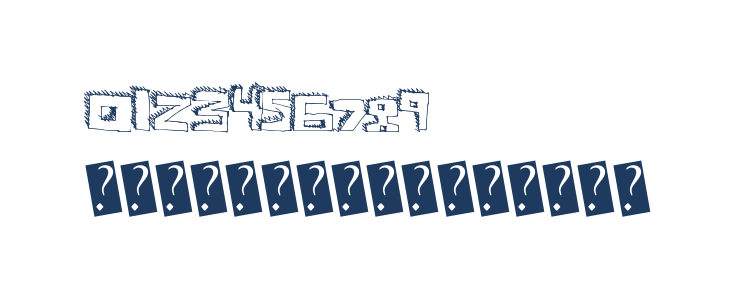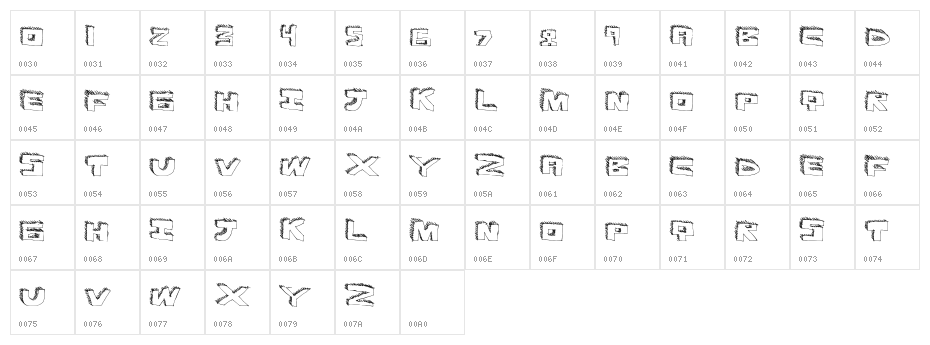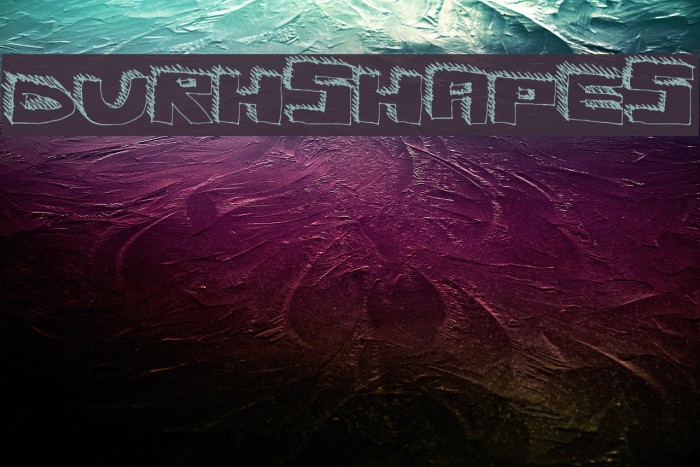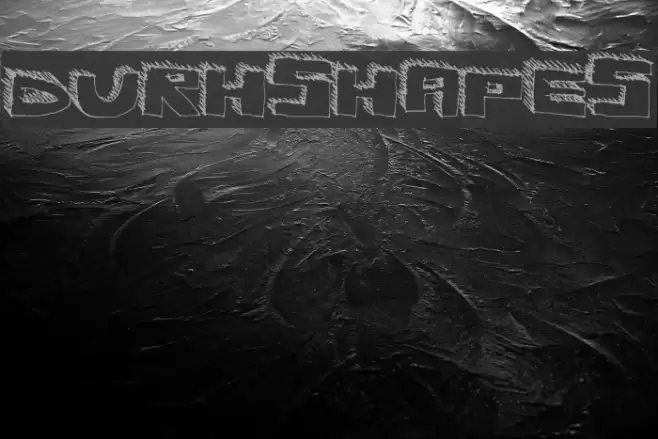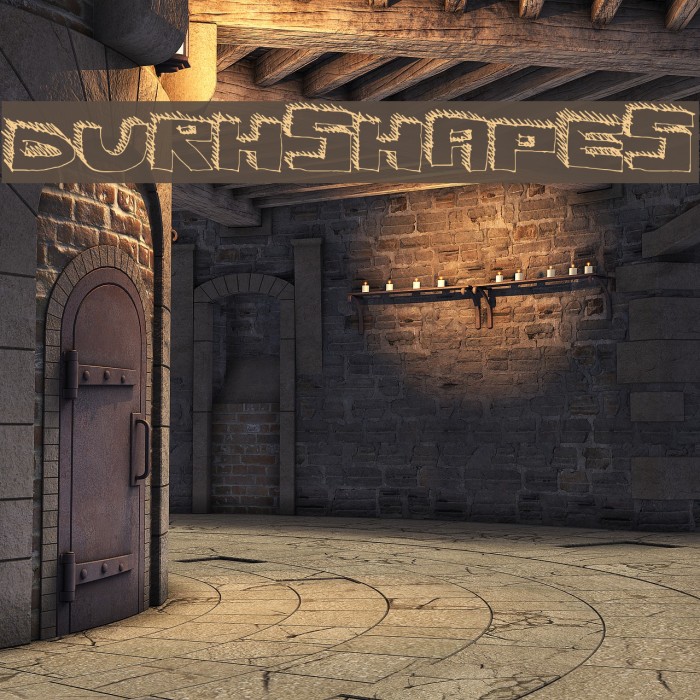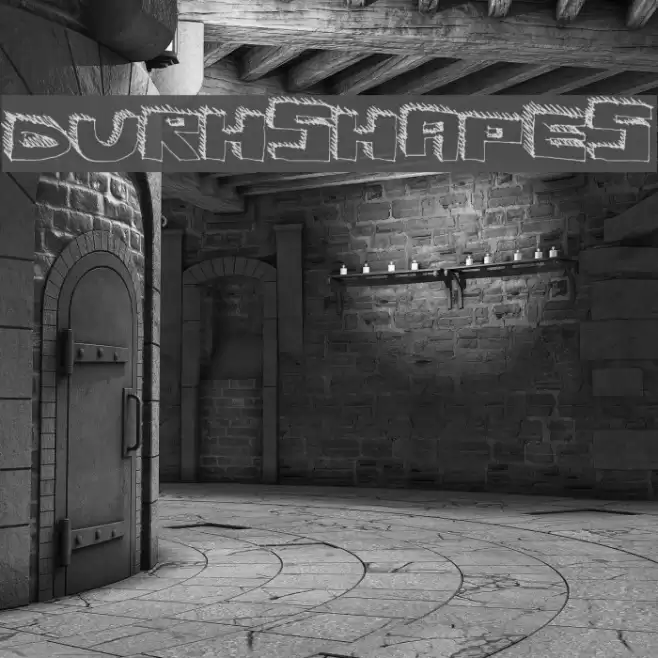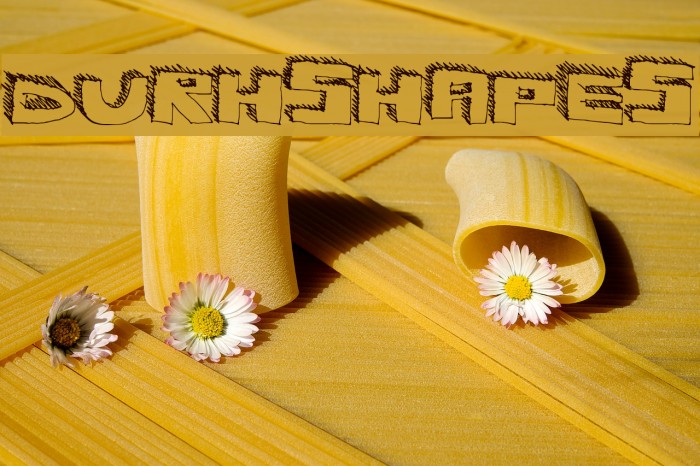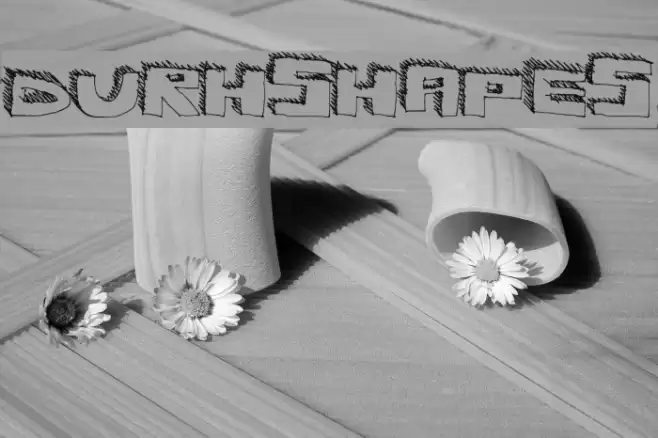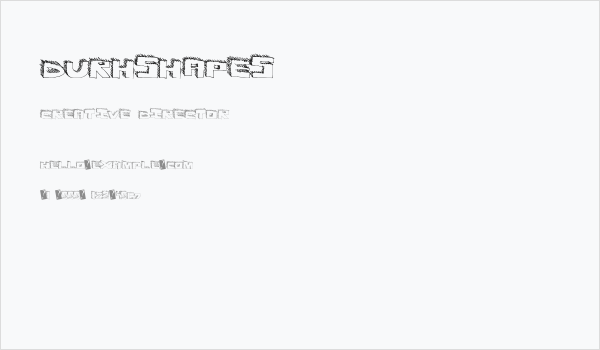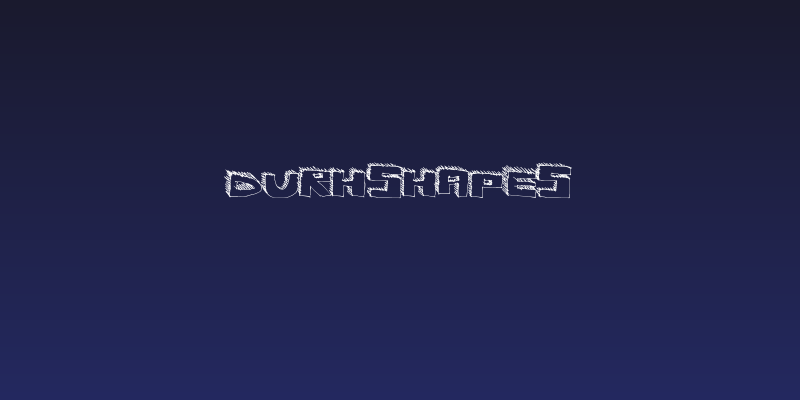
DurhShapes Font
DurhShapes Description
This font features a bold, edgy design with a sketch-like appearance. The characters are outlined with a rough, hand-drawn effect, giving them a dynamic and energetic feel. The uppercase letters are consistent in height, while the lowercase letters maintain a similar style, enhancing the font's cohesive look. Numbers and special characters follow the same aesthetic, ensuring uniformity across all elements. The font's unique style makes it stand out, ideal for projects that require a creative and unconventional touch.